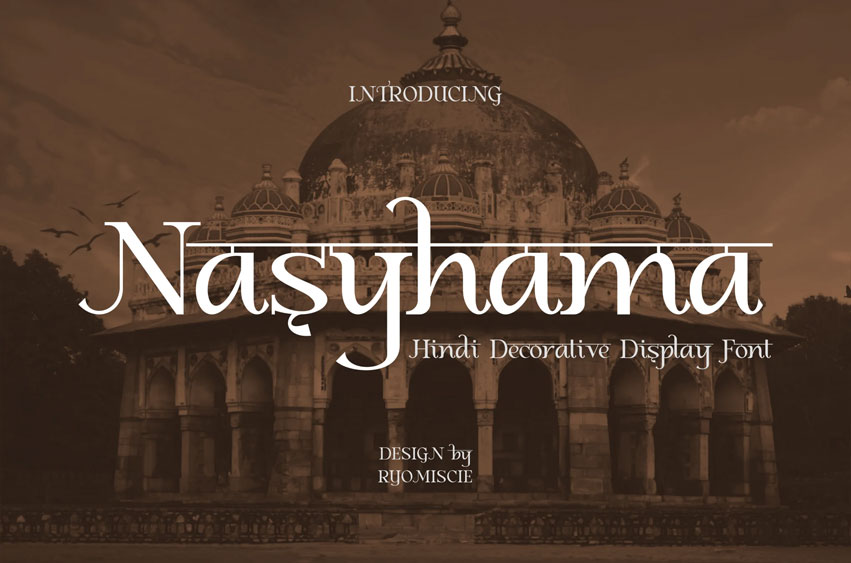
Nasyhama Font is a Modern Hindi Font. Nasyhama Font – A Modern Hindi Font Font Authentic display font.
The font is suitable for any branding project, like logos, Template Designs, Products, and many more. outstanding in a wide range of contexts.